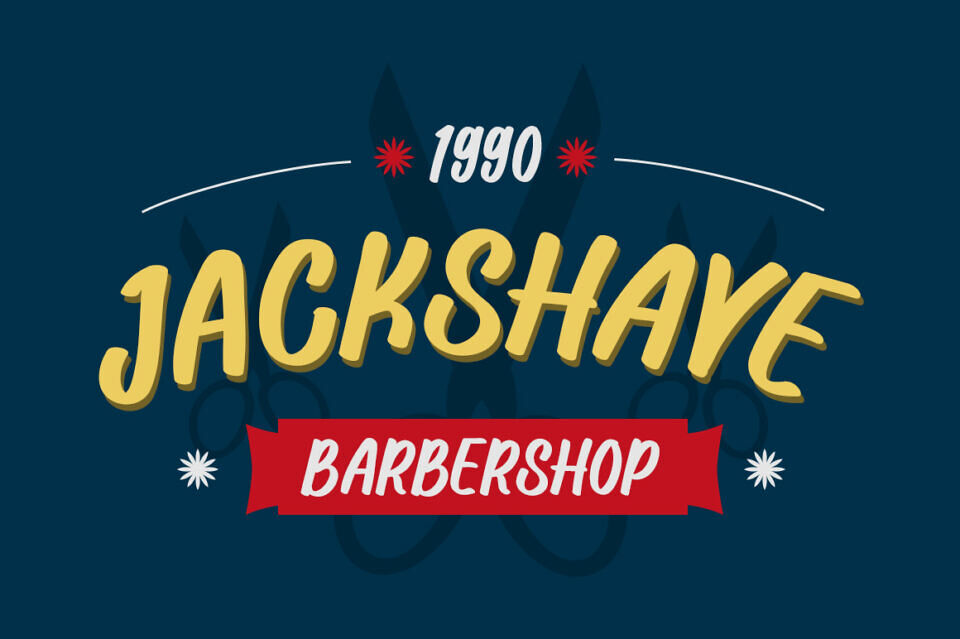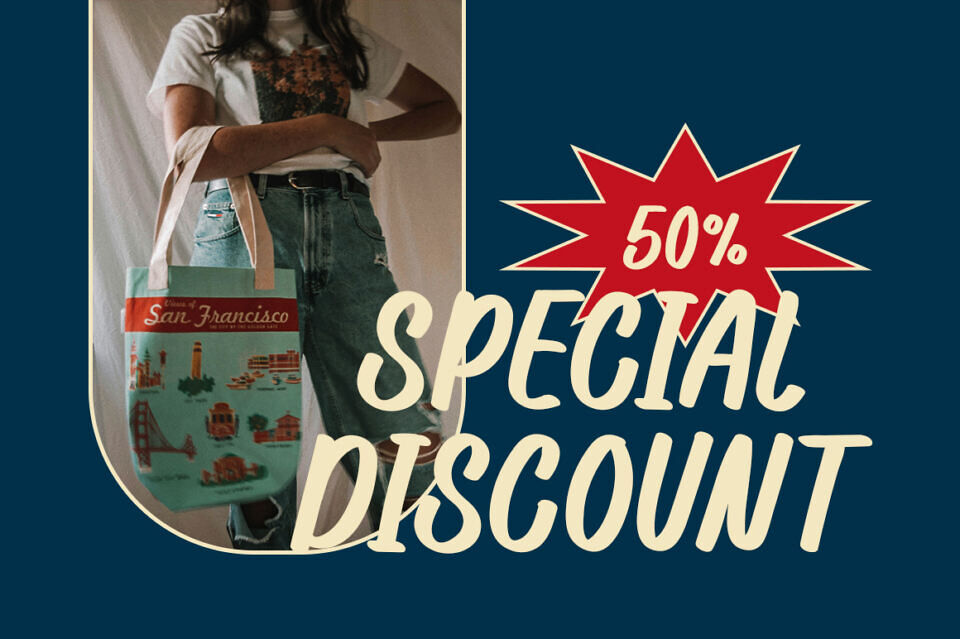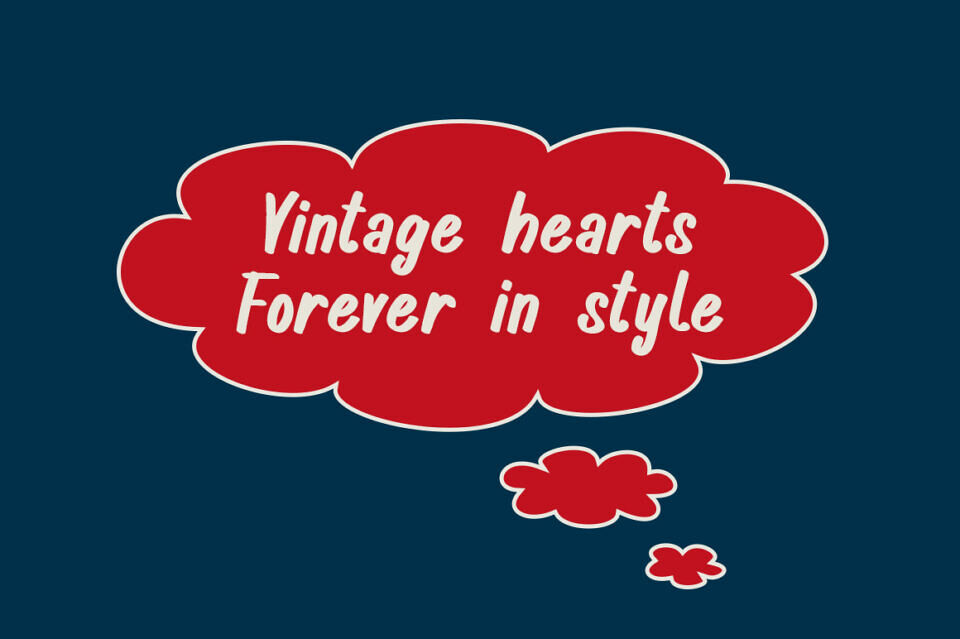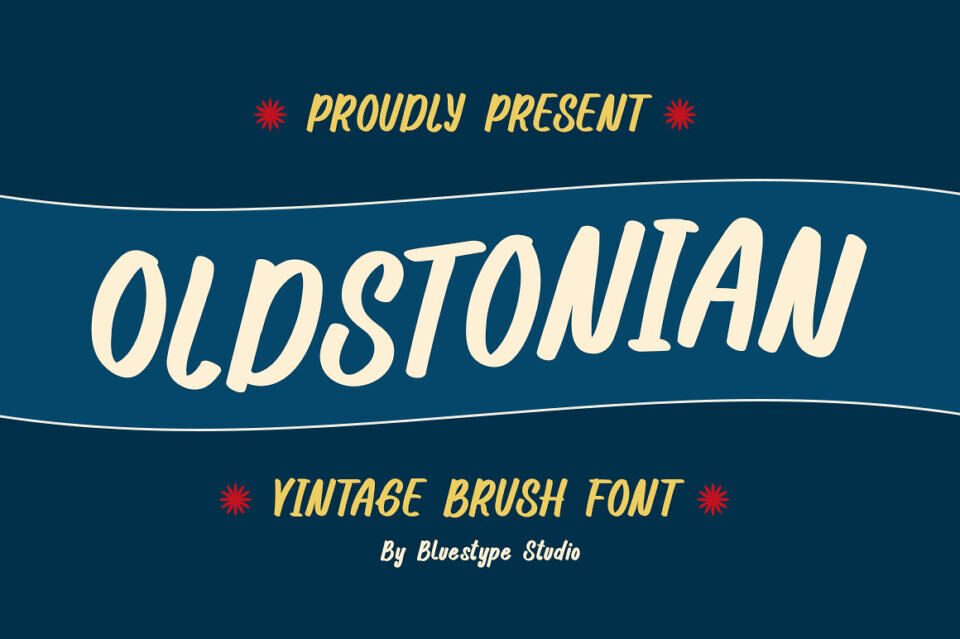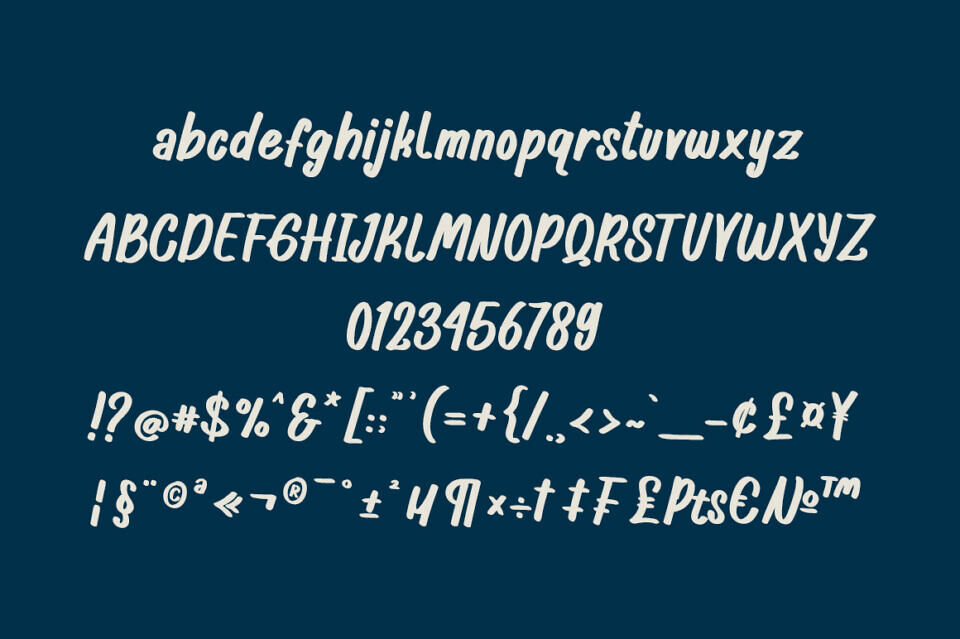
Oldstonian is a bold and charismatic typeface that blends the raw, hand-painted texture of a brush font with the clean structure of a sans serif. Designed with a nostalgic vintage touch, Oldstonian brings character and authenticity to any design it graces.
Perfectly imperfect, each letter carries a handcrafted feel that makes your text stand out while remaining easy to read. Whether you’re crafting a retro-inspired logo, a rustic label, or eye-catching social media graphics, Oldstonian delivers both strength and style.
Bring a touch of timeless character and bold personality to your projects with Oldstonian — where vintage flair meets modern versatility.